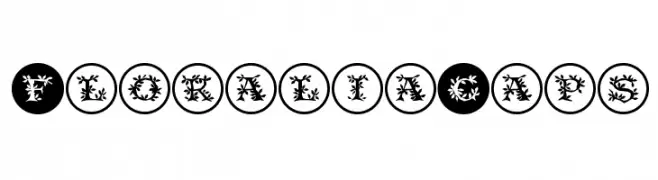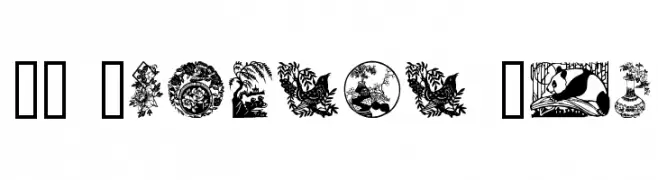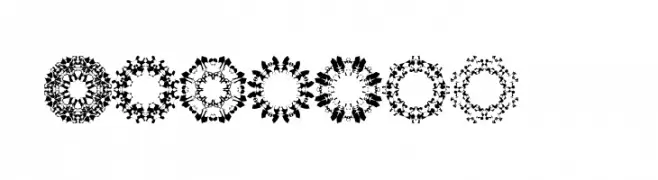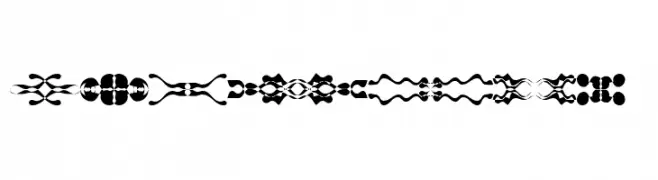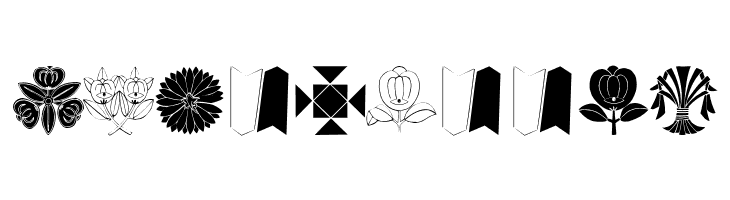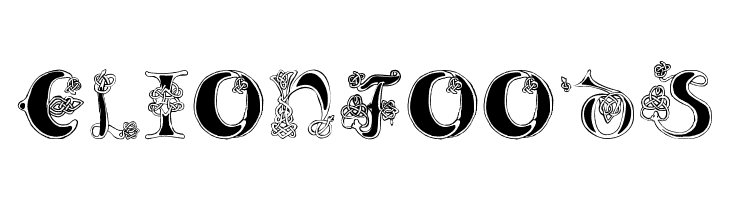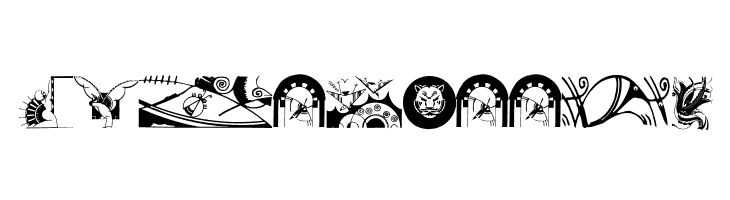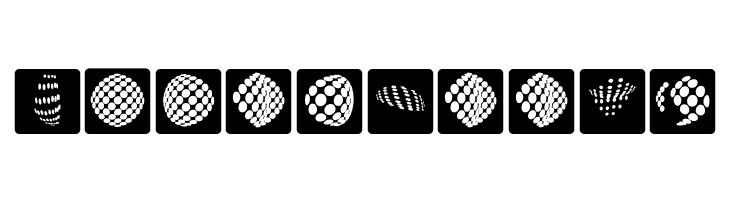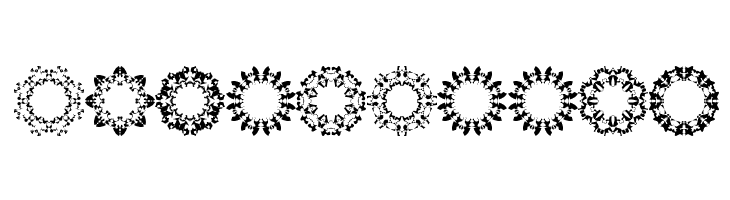
Ornamental symbol set with geometric and floral motifs.
Ornate, vintage woodcut-style initials with intricate floral designs.
A decorative Art Deco-inspired font with intricate patterns and motifs.
Abstract, geometric display font with a futuristic, space-inspired theme.
( Fonts by David Rakowski )
Ornamental dingbat font with vintage decorative motifs.
An ornate, floral-themed decorative font with intricate details.